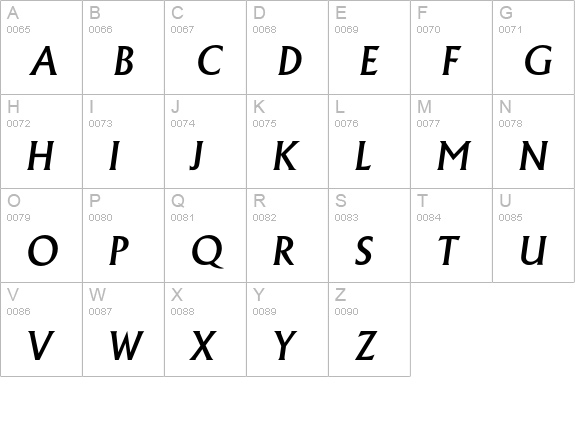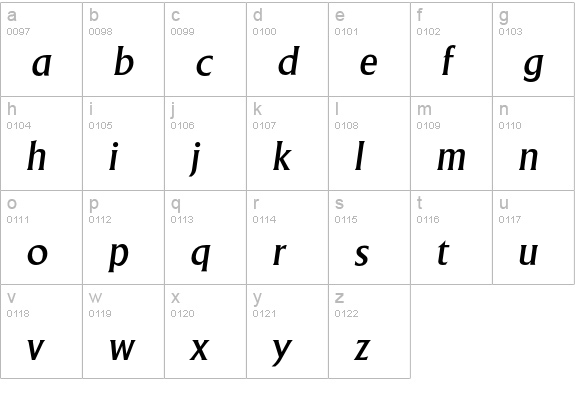
Adelon-MediumIta Font Details
Adelon-MediumIta is a versatile and elegant font that exudes sophistication and style. With its sleek lines and subtle curves, this font is perfect for adding a touch of class to any design project. The medium italic style adds a sense of dynamism and movement, making it a great choice for both headers and body text. What sets Adelon-MediumIta apart is that it is completely free to download at FontsMarket.com. This means that you can access this stunning font without any cost, making it a fantastic option for designers on a budget or those looking to experiment with a new typeface. Don't miss out on the opportunity to enhance your designs with the timeless appeal of Adelon-MediumIta – download it for free today!